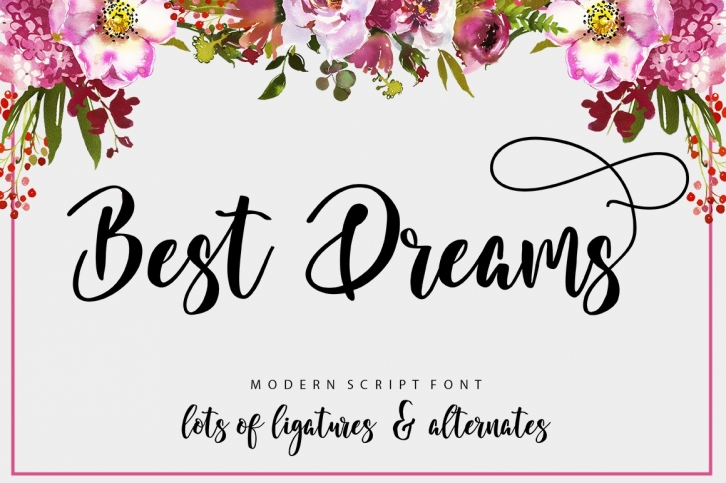
Best Dreams is a great font that was designed by Lucky Type. Imagine the amount of combinations you can create using this font! The archive is 20.41 MB and it was released on September 1, 2018. Best Dreams looks beautiful on wedding invitations, greeting cards, logos, posters, labels, t-shirt designs, logos, business cards and is perfect for use in ink or watercolor works, fashion, magazines, packaging and food menus, children's books and more!